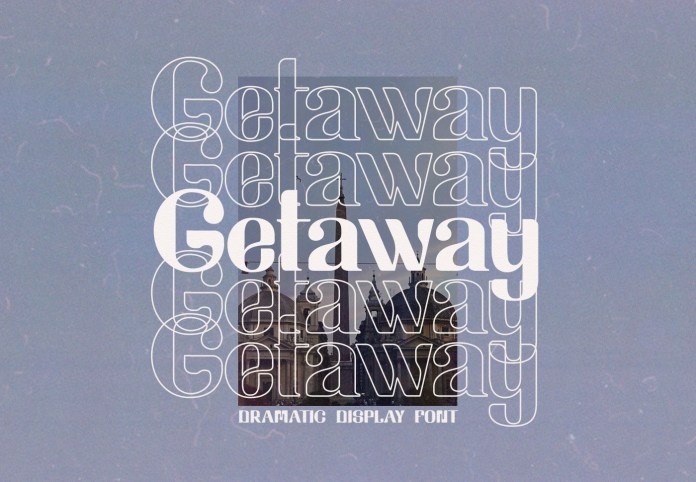
Getaway Font
This is a free bold display typeface created by David González Molinero with a touch of vintage look and feel.
This type of font perfectly made to be applied especially in logo, headline, signage and the other various formal forms such as invitations, labels, logos, magazines, books, greeting / wedding cards, packaging, fashion, make up, stationery, novels, labels or any type of advertising purpose.